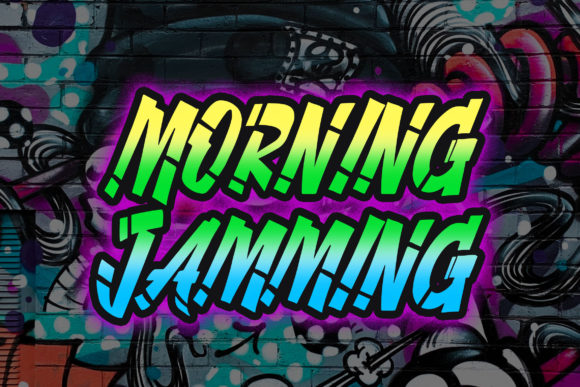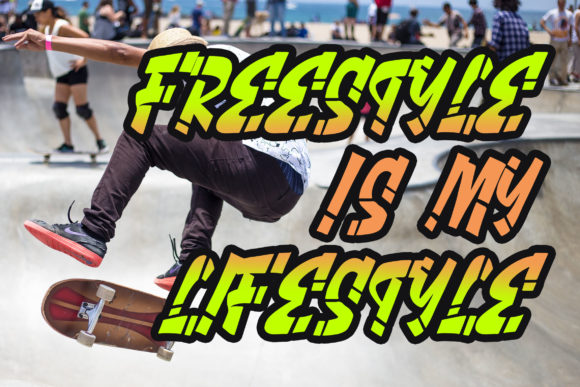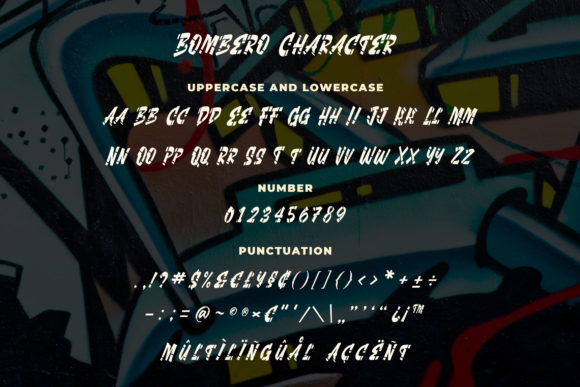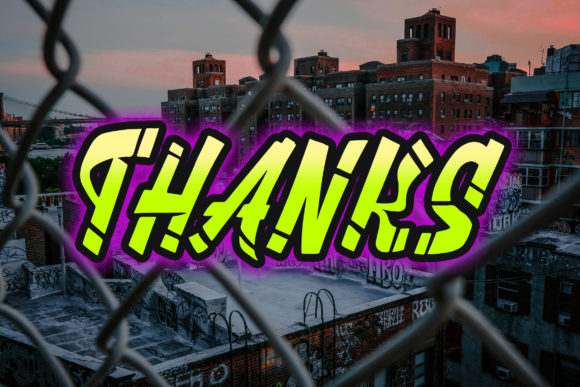
Bombero Font: Unleash Urban Boldness in Your Designs
Are you tired of using the same old fonts in your designs? Look no further than the Bombero font, a fun and cool display font that’s sure to add a touch of urban boldness to your creations. In this article, we’ll dive into the unique style of Bombero, its features, and how you can use it to take your designs to the next level.
The Unique Style of Bombero Font
Bombero font is a display font that exudes confidence and energy. Its bold and chunky letters are perfect for making a statement, and its urban feel is sure to resonate with designers and crafters who want to add a touch of edginess to their work. The font’s unique style is inspired by the streets, with a rough and rugged texture that’s reminiscent of graffiti and street art.
Key Features of Bombero Font
• Urban Boldness: Bombero font is all about boldness and confidence. Its chunky letters and urban feel make it perfect for designs that need to make a statement.
• Unique Style: The font’s unique style is inspired by the streets, with a rough and rugged texture that’s reminiscent of graffiti and street art.
• Fun and Cool: Bombero font is a fun and cool font that’s perfect for designs that need to be playful and eye-catching.
• Multipurpose: The font is versatile and can be used for a variety of design projects, from posters and flyers to logos and branding.
How to Use Bombero Font in Your Designs
Bombero font is easy to use and can be incorporated into a variety of design projects. Here are a few ideas to get you started:
• Posters and Flyers: Use Bombero font to create bold and eye-catching posters and flyers that are sure to grab attention.
• Logos and Branding: The font’s unique style and urban boldness make it perfect for logos and branding projects that need to make a statement.
• Social Media Graphics: Use Bombero font to create fun and cool social media graphics that are sure to stand out.
• Packaging Design: The font’s bold and chunky letters make it perfect for packaging design projects that need to be eye-catching and attention-grabbing.
Tips and Tricks for Using Bombero Font
Here are a few tips and tricks to keep in mind when using Bombero font in your designs:
• Use it boldly: Bombero font is all about boldness and confidence, so don’t be afraid to use it boldly in your designs.
• Experiment with colors: The font’s urban feel and rugged texture make it perfect for experimenting with bold and bright colors.
• Mix and match: Try mixing and matching Bombero font with other fonts to create a unique and eye-catching look.
Bombero font is a fun and cool display font that’s sure to add a touch of urban boldness to your designs. Its unique style, bold and chunky letters, and urban feel make it perfect for designers and crafters who want to make a statement. With its versatility and ease of use, Bombero font is a great addition to any design project. So why not give it a try and see how it can take your designs to the next level?
Get Inspired by Bombero Font